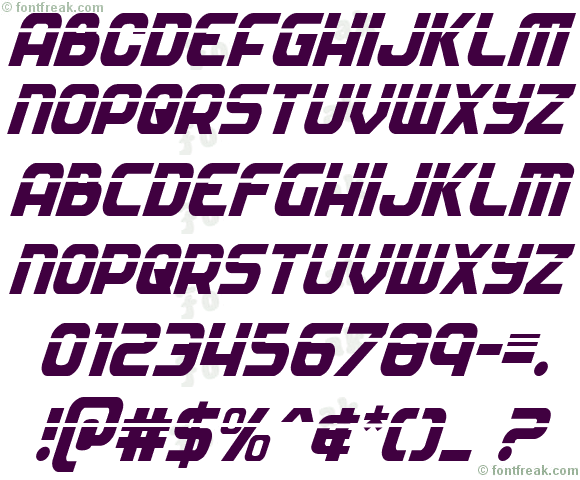
Soldier Laser Regular
About Soldier Laser Regular
Soldier Laser Regular is a distinctive display font designed by Daniel Zadorozny, categorized as a decorative typeface. This font features a bold, condensed design that captures attention with its unique 3D-like appearance. The stroke weight is consistent, giving it a robust feel, while the slight contrast in thickness adds depth. The letters are spaced thoughtfully, ensuring legibility without sacrificing style. The angular, futuristic shapes of the characters evoke a sense of movement and energy, making it ideal for a variety of creative projects.
This font is particularly well-suited for use in movie posters, video game graphics, and promotional materials for tech or sci-fi events. Its bold design can also enhance the visual appeal of product packaging, especially for brands seeking to convey innovation and modernity. Additionally, it is a fantastic choice for headlines or banners that require an eye-catching presence, making it perfect for small business owners looking to make a statement in advertising.
Target audiences for Soldier Laser Regular include graphic designers, content creators, and marketers who are looking to add a unique touch to their projects. Its playful yet professional aesthetic allows it to resonate with a wide range of users, from casual designers to seasoned professionals.
What sets the Soldier Laser Regular font apart is its striking visual appeal combined with versatility. The font's unique design ensures that it stands out while remaining functional across various mediums. Whether you're crafting bold headlines or eye-catching promotional materials, Soldier Laser Regular font free download offers a fresh and engaging option for your design toolbox. Its blend of modernity and creativity makes it an essential choice for anyone looking to elevate their visual communication.